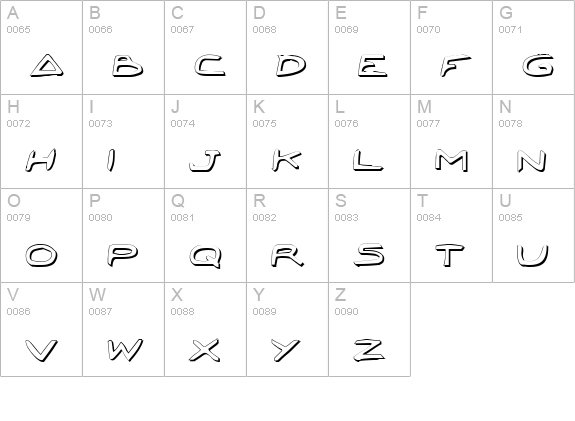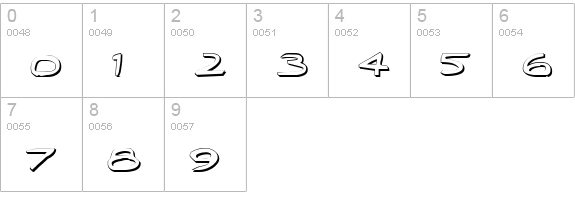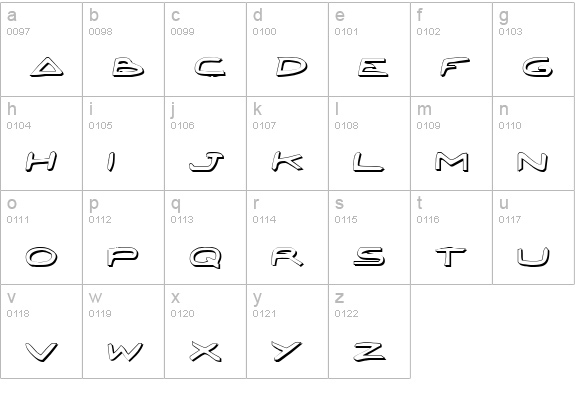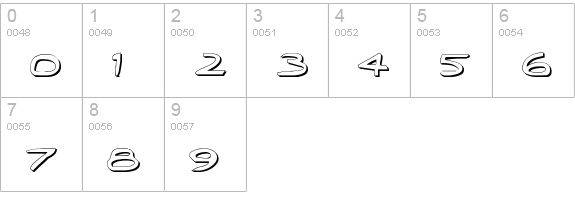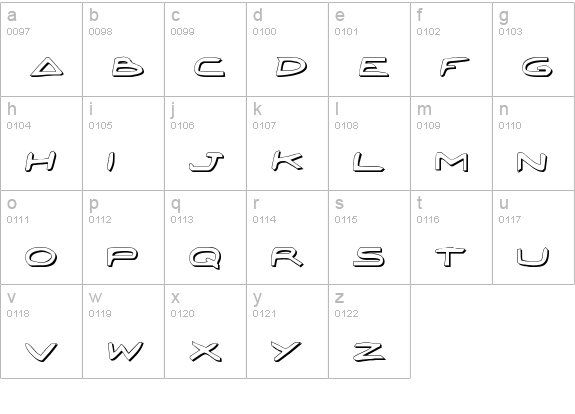
Introducing Jetta Shadow font, a modern and elegant typeface that exudes sophistication and style. With its sleek lines and unique shadow effect, Jetta Shadow font is perfect for adding a touch of luxury to your design projects. Whether you're creating a logo, poster, or website, this versatile font will make your text stand out. What's even better is that Jetta Shadow font is completely free to download at FontsMarket.com. You can easily access this stunning typeface and elevate your designs without any cost. Don't miss out on the opportunity to add Jetta Shadow font to your font collection today and take your projects to the next level.